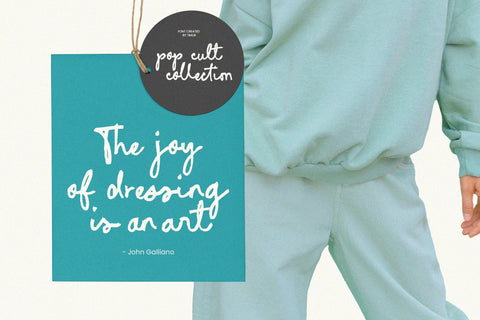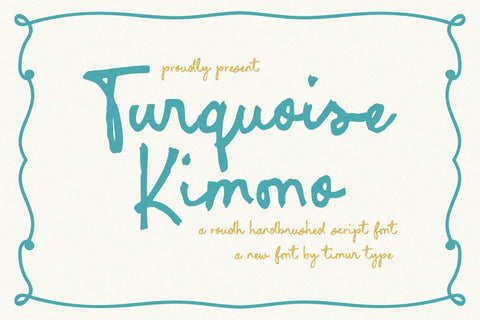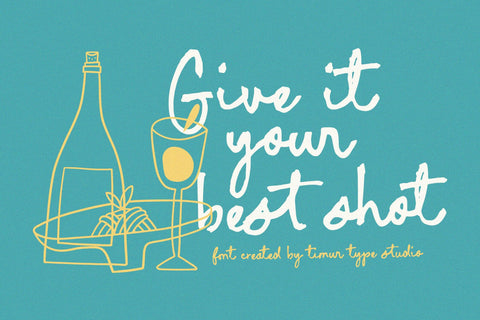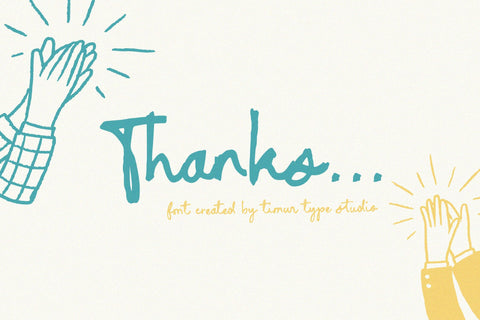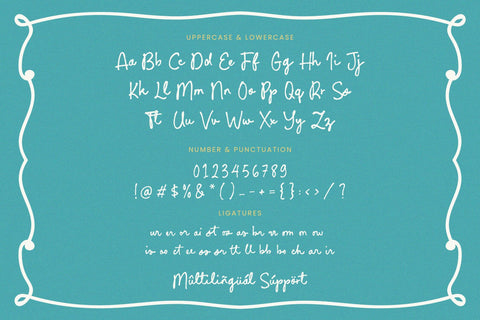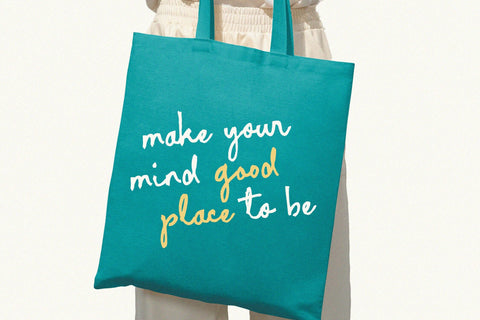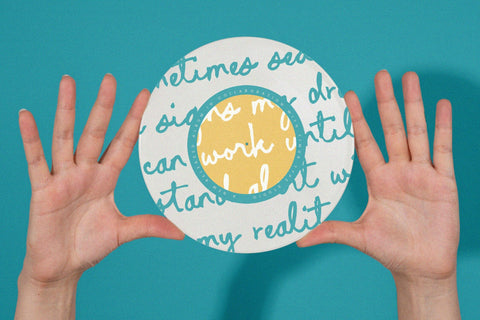
Turquoise Kimono - Handbrushed Script Font
Turquoise Kimono is a Handbrushed Script Font
This font is a elegant handbrushed script font that exudes a sophisticated charm. With its fluid, flowing strokes and playful loops, it captures the essence of handwritten artistry. Ideal for adding a touch of refined grace to invitations, greeting cards, or branding projects, this font combines a modern flair with a timeless, organic feel. Its unique character set ensures your text stands out with a artistic touch.
Turquoise Kimono also supports multilingualism